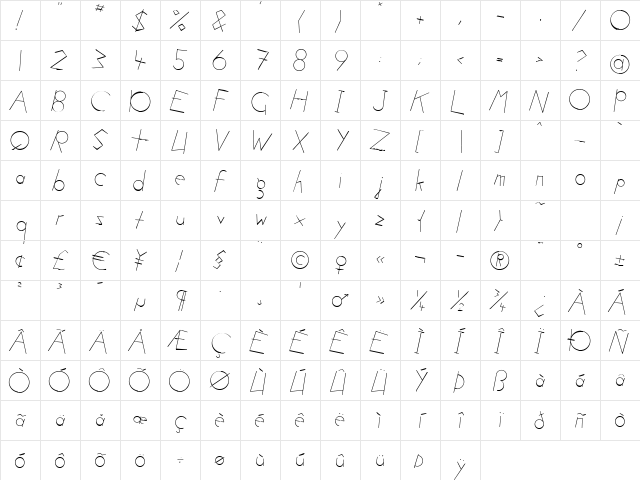
Atomic Pasta Italic Free Font
Atomic Pasta Italic
Design Context for Atomic Pasta
Atomic Pasta is a composed and adaptable typeface that performs quietly and consistently across a wide range of design contexts. The slanted form adds forward momentum and visual energy.
Pro Tip: Use Atomic Pasta for emphasis, pull quotes, and subheadings where its slanted energy can add rhythm to the layout.